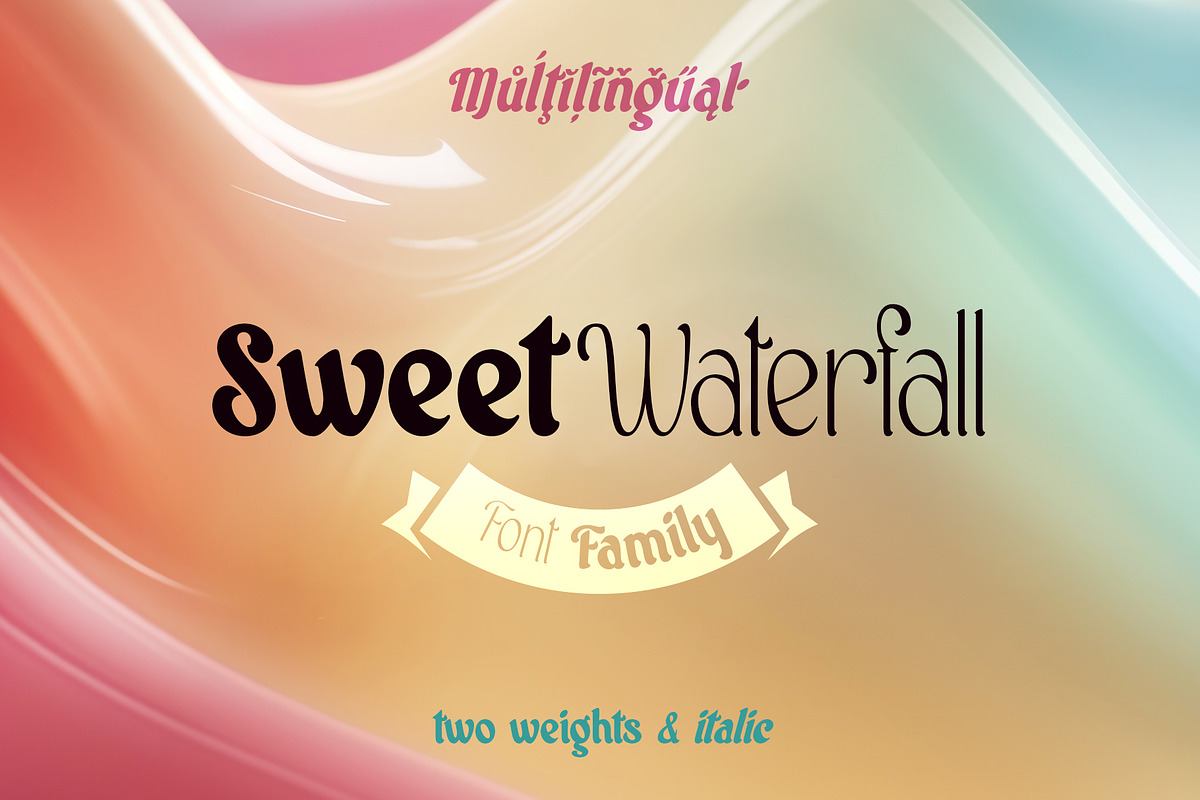
Sweet Waterfall Font is perfect for nature-inspired branding, spa and wellness materials, romantic wedding invitations, organic product packaging, peaceful retreat promotions, water therapy center signage, natural beauty product labels, serene meditation graphics, eco-friendly marketing campaigns, tranquil lifestyle brands, gentle greeting cards, and flowing artistic designs.
Sweet Waterfall Font is exciting because it captures the serene beauty and gentle flow of cascading water through graceful letterforms that embody tranquility, natural harmony, and peaceful elegance with every character. This enchanting typeface features flowing curves and organic movements that mirror the soothing rhythm of waterfalls and natural streams. The font's calming aesthetic creates instant emotional connections with audiences seeking peace, relaxation, and connection with nature's most beautiful elements.
Sweet Waterfall Font includes comprehensive font families: Regular Flowing Style, Bold Cascade Weight, Light Gentle Touch, Medium Natural Balance, Italic Stream Movement, Condensed Rapids Format, Extended River Width, Mist Effect Variation, Clear Water Alternative, and Special Nature Symbols, providing endless creative possibilities for nature-inspired and tranquil design projects.
This peaceful typography solution transforms ordinary communications into serene natural experiences through its authentic water-inspired aesthetic and flowing design language. Sweet Waterfall Font Free Download enables designers and nature enthusiasts to access premium tranquil typography that instantly adds serenity, natural beauty, and peaceful elegance to any creative project. The font's carefully crafted flowing elements ensure harmonious visual rhythm while maintaining excellent readability and distinctive natural character.
Wellness businesses, nature brands, and peaceful lifestyle companies trust Sweet Waterfall Font for its ability to communicate tranquility, natural harmony, and serene beauty to audiences seeking authentic connections with nature and peaceful experiences. The typeface's flowing construction performs beautifully across various applications, from intimate wellness materials to large-scale nature tourism campaigns. Its extensive character support includes multilingual capabilities and natural design elements that enhance peaceful brand presentations.
The creative inspiration behind Sweet Waterfall Font draws from the mesmerizing beauty of natural waterfalls, peaceful forest streams, and the universal human attraction to flowing water as a source of tranquility and renewal. This nature-focused approach creates a font that feels genuinely peaceful while maintaining contemporary relevance across different wellness contexts and serene brand expressions.
Whether creating spa brand identities, nature retreat materials, or peaceful wellness campaigns, this sweet waterfall font delivers exceptional results that flow with natural beauty and tranquil elegance. Download Sweet Waterfall Font today and discover how premium nature-inspired typography can transform your design projects into serene expressions of natural harmony, peaceful beauty, and the gentle flow that defines life's most tranquil moments.